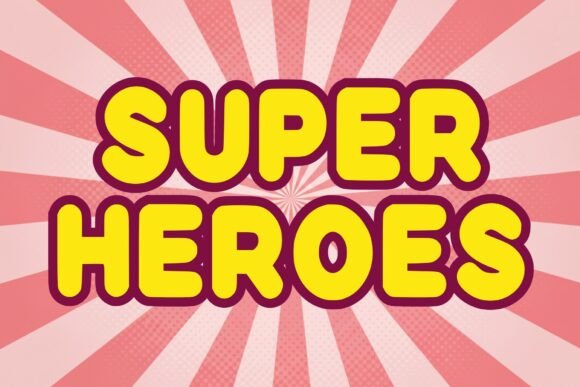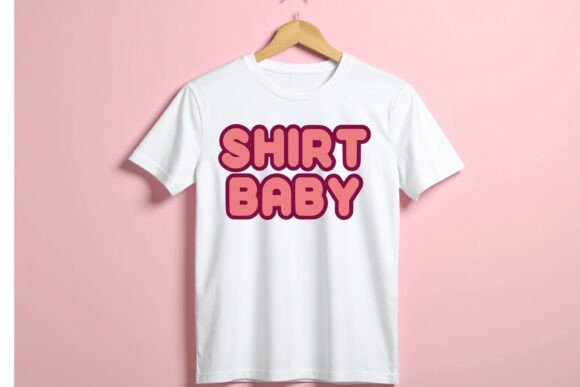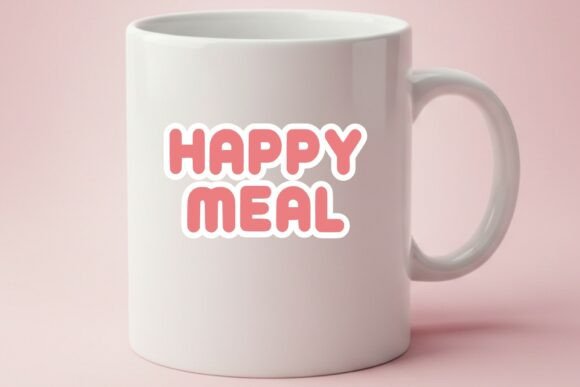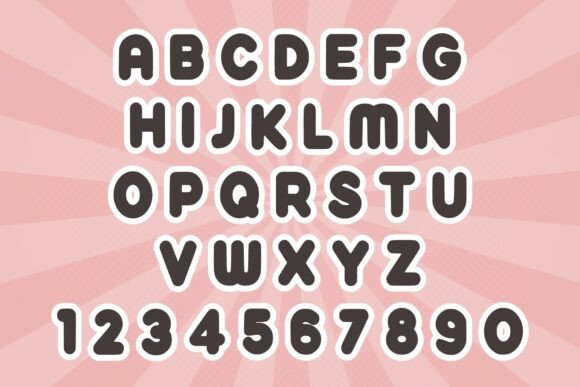
Introduction to Comic Grizzy Font
Comic Grizzy is a playful and bold cartoon display font with thick, rounded letterforms and a cheerful comic style.
Perfect for kids designs, comic books, posters, stickers, logos, branding, social media graphics, t-shirt designs, packaging, invitations, and fun digital projects This font delivers a friendly, energetic, and eye-catching look that instantly brings joy and creativity to any design.